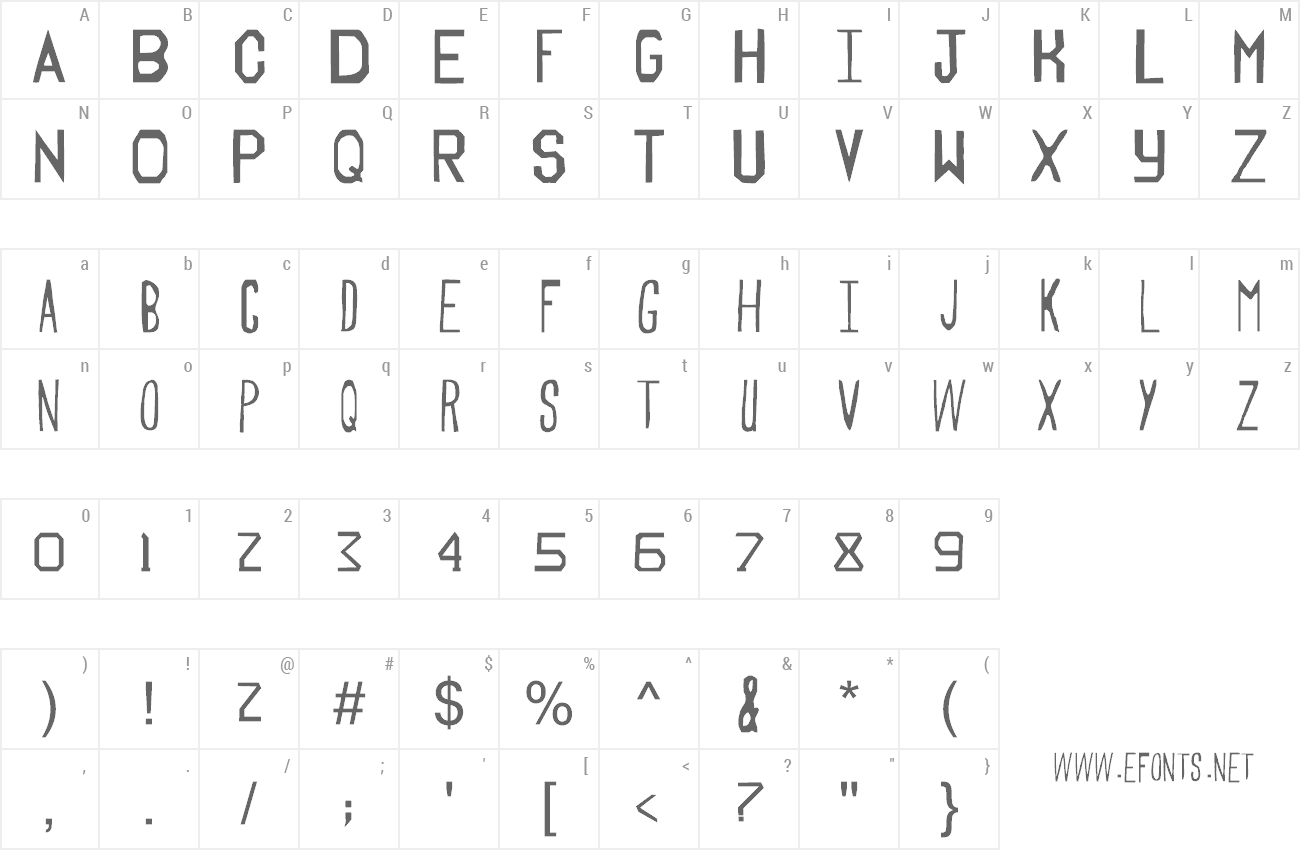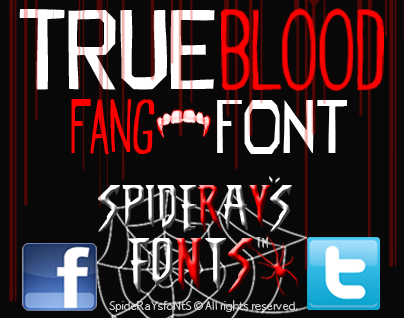
This is my own version of the TRUE BLADE and TRUE GOTHIC Mixture of fonts used in the TRUEblood series pain-stackingly created from many screen dumps and much artistic flair. If you want the O with the underline then use the comma (,) This font has been created as FREE for personal use for a commercial license please visit our Etsy store @ http://etsy.me/2ef1tmK |